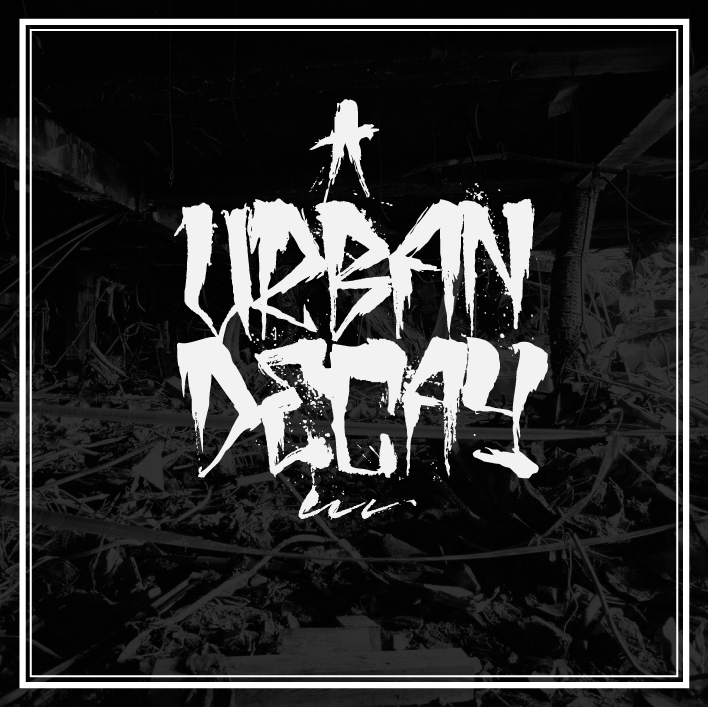
Preview and download Urban Decay Font. Created by zofos in Script Graffiti styles with Donationware license.
About the font: Urban Decay is a hand-made brush stroke font made to celebrate my love for graffiti, urban exploration, street calligraphy and inner city living! Give it a try and "vandalise" your graphics with Urban Decay font! don't forget to donate! |